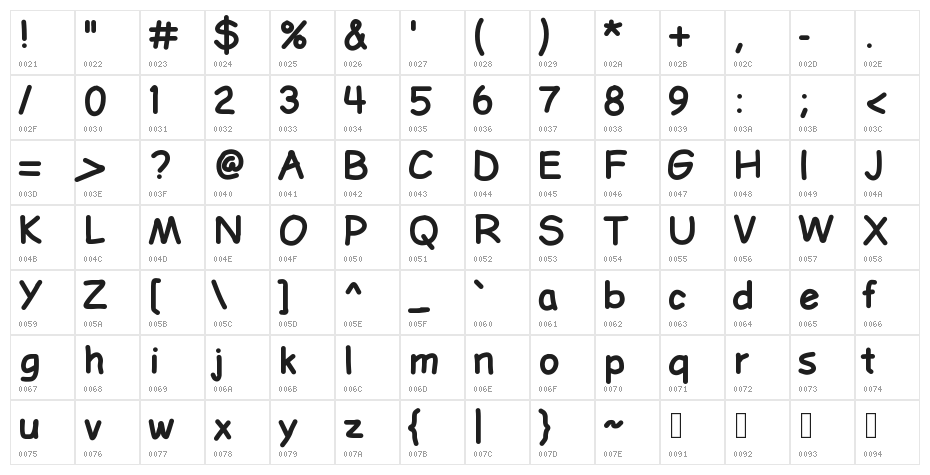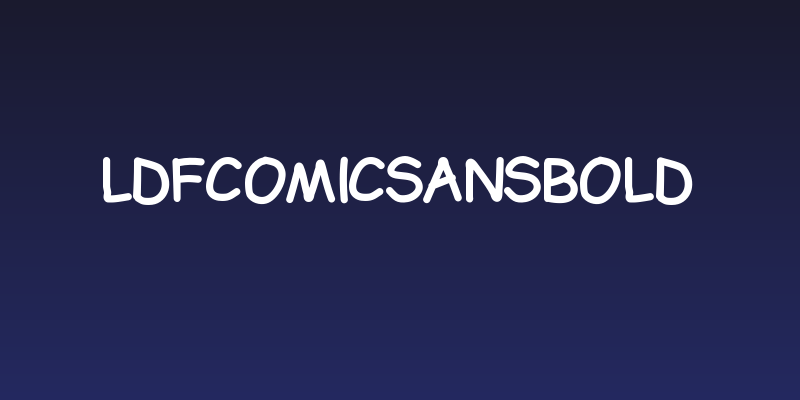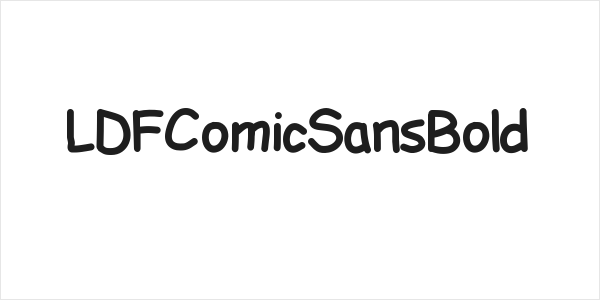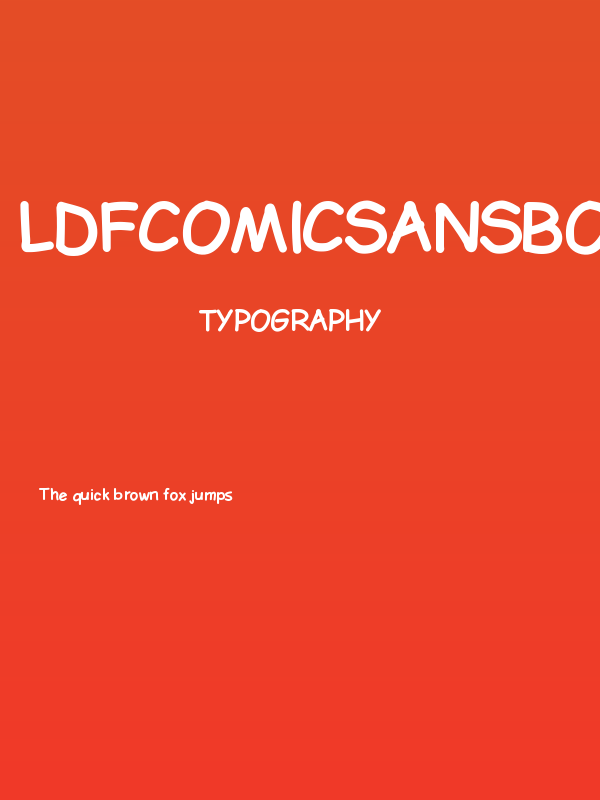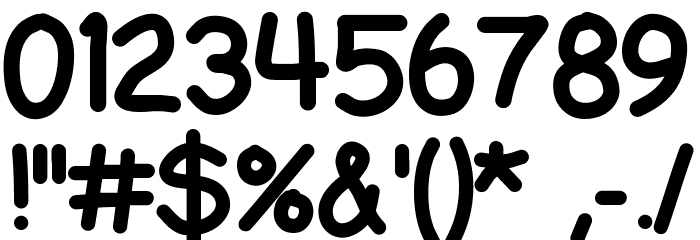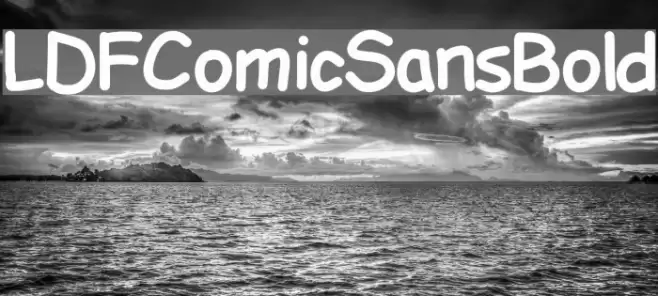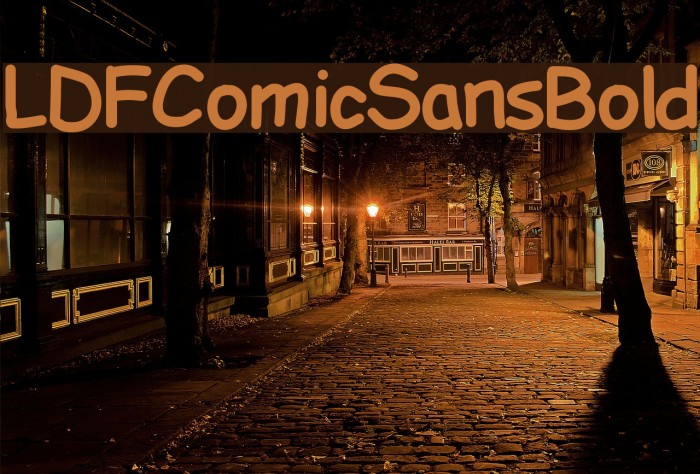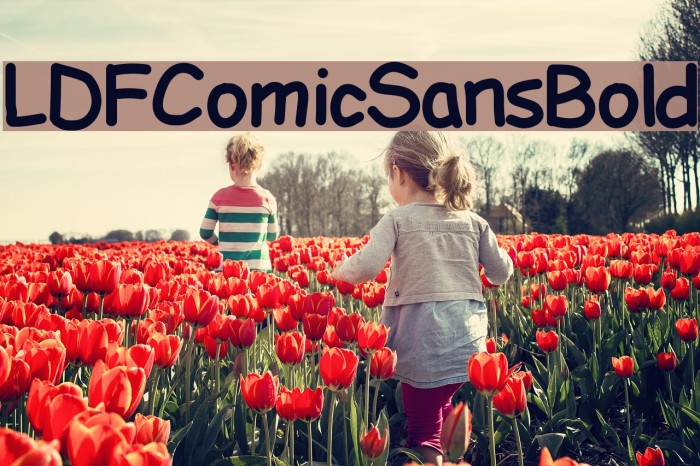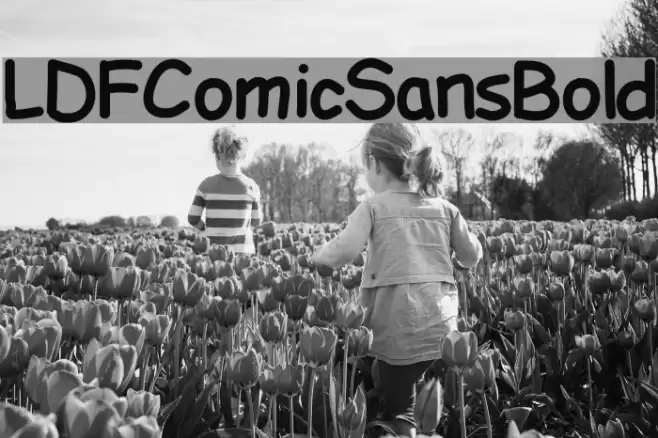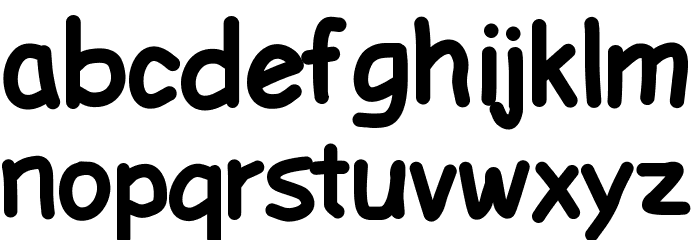
LDFComicSansBold Font
LDFComicSansBold Description
This playful and informal font features rounded, slightly irregular characters that give it a hand-drawn appearance. The letters are bold and have a consistent stroke width, contributing to a friendly and approachable style. The uppercase and lowercase letters maintain a uniform height, while the numerals and special characters blend seamlessly with the alphabet. Its casual aesthetic makes it suitable for projects that require a lighthearted and fun tone. The font's design is reminiscent of comic book lettering, with a whimsical touch that appeals to a wide audience.
| Overall Style | Playful |
| Use Case | Headlines, Logos, Informal Text |
| Proposed Projects | Ideal for children's books, comic strips, informal invitations, and playful branding. |